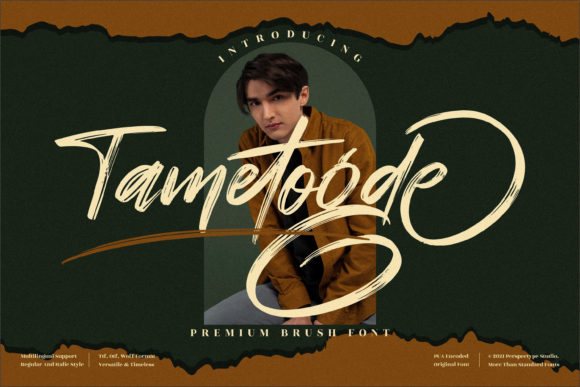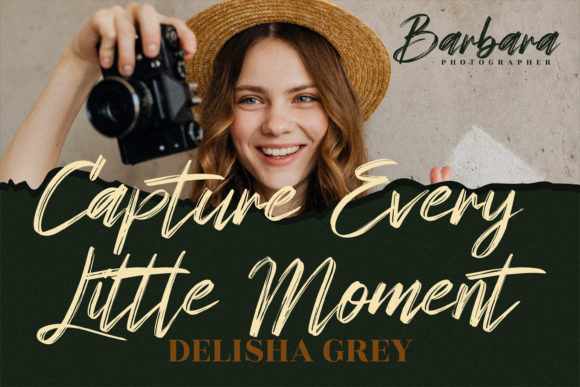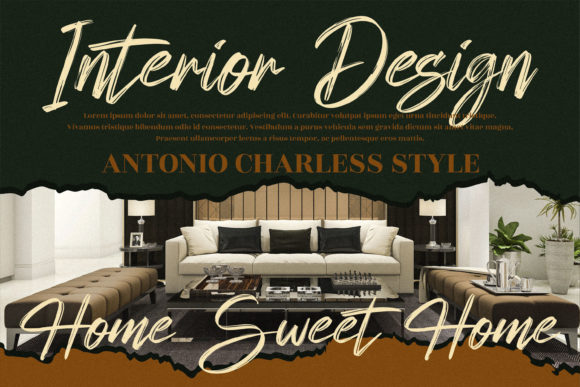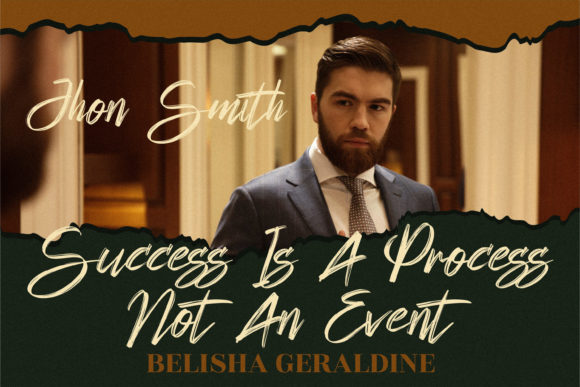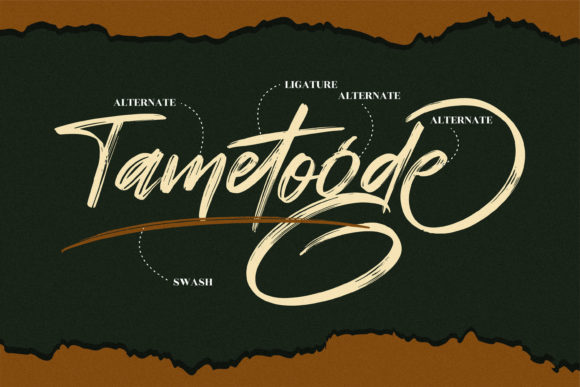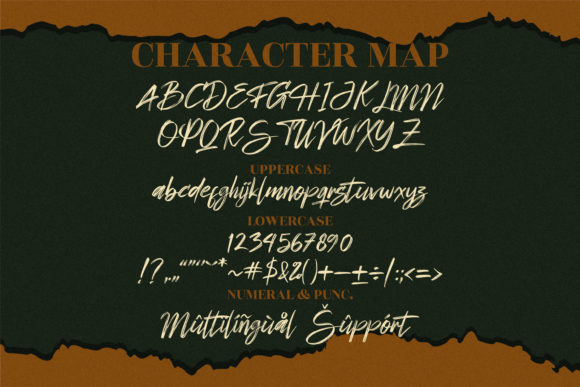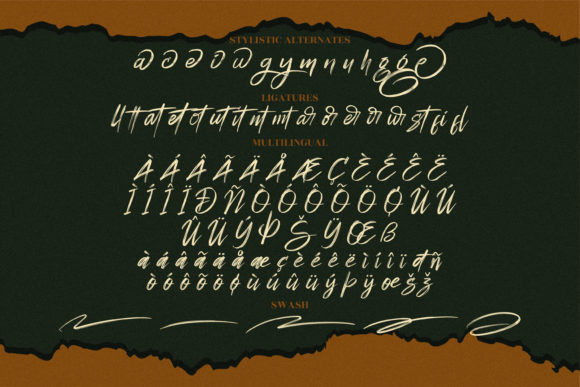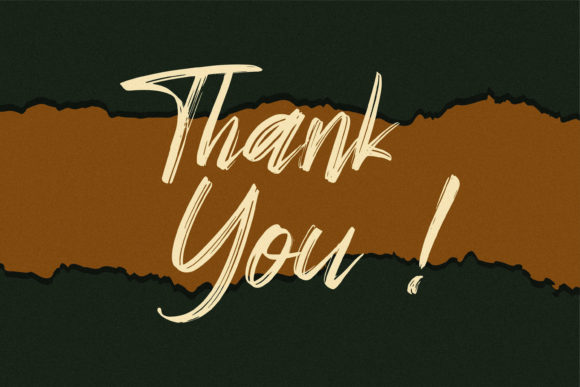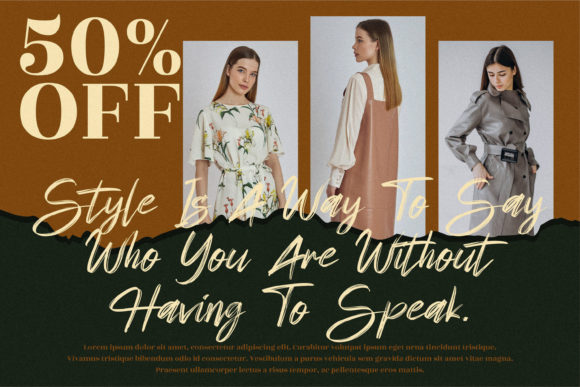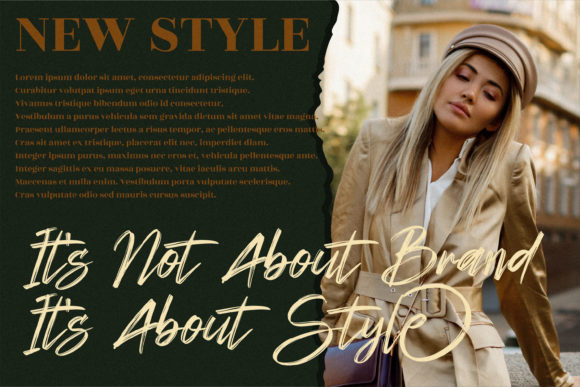
Tametogde Font
About Tametogde Font
Tametogde is a bold and expressive brushed script font that brings a touch of energy and personality to your designs. With its neatly crafted and highly detailed letterforms, this font is a valuable asset to your font library.
The cursive style of Tametogde adds a sense of fluidity and movement to your designs. The bold brush strokes create a dynamic and impactful look, making it suitable for a wide range of topics and design purposes.
Whether you’re working on logos, branding materials, invitations, posters, or any other creative project, Tametogde has the potential to enhance your designs. Its unique style and attention to detail make it stand out and bring a sense of sophistication to your work.
Tametogde is PUA encoded, which means you have easy access to all of its glyphs and swashes. This gives you the freedom to explore different design possibilities and create truly unique and customized typography.
The carefully crafted and highly detailed letterforms of Tametogde ensure that each character has a distinct and visually pleasing appearance. The combination of its cursive style, bold brush strokes, and intricate details adds depth and character to your designs.
With Tametogde as part of your font library, you have the potential to create eye-catching and impactful designs. Its bold and expressive nature brings a sense of energy and uniqueness to your creations, making them stand out from the crowd.
In summary, Tametogde is a cursive and bold brushed script font that enhances any creation with its unique style and attention to detail. Whether you’re working on logos, branding materials, or other design projects, Tametogde brings a touch of energy and personality. Its PUA encoding allows easy access to its glyphs and swashes, giving you the freedom to customize and create truly unique designs.